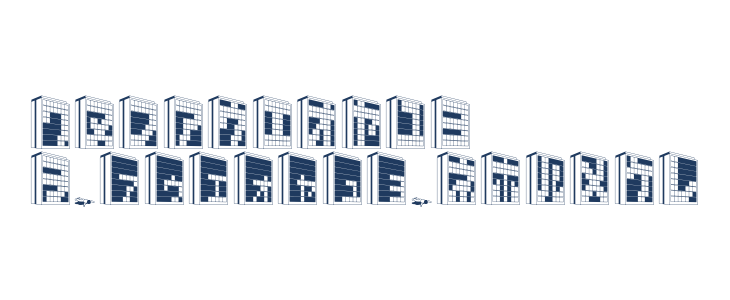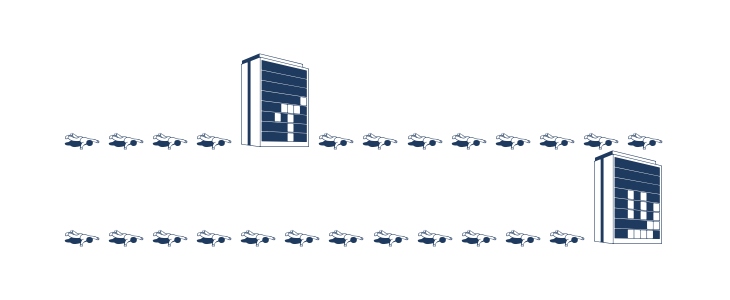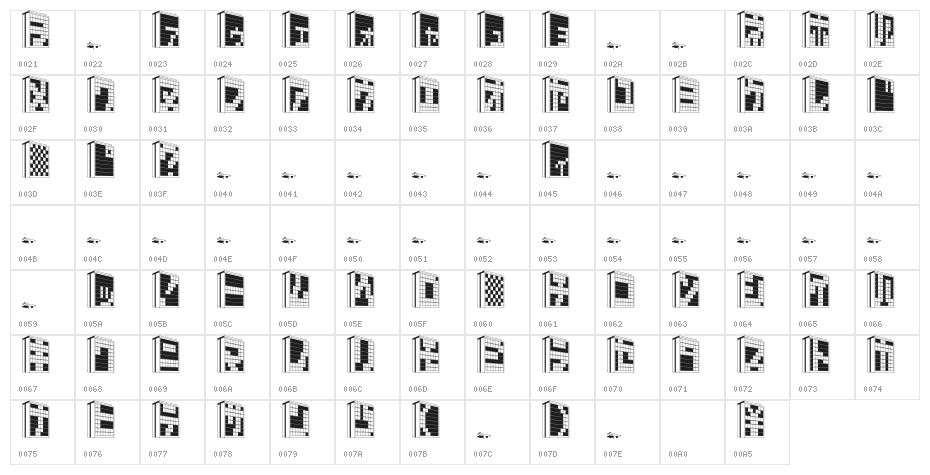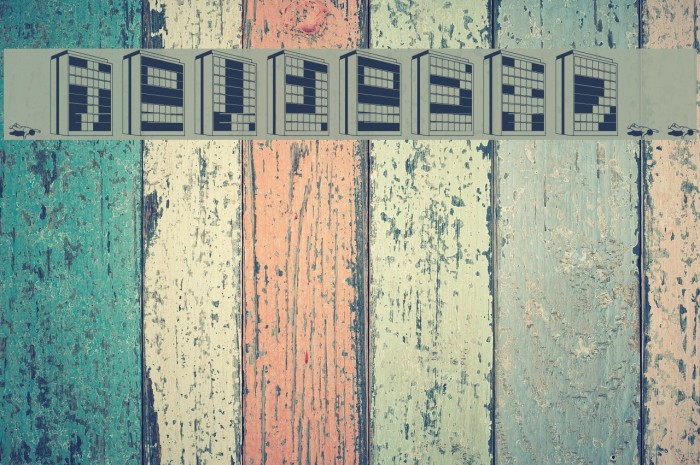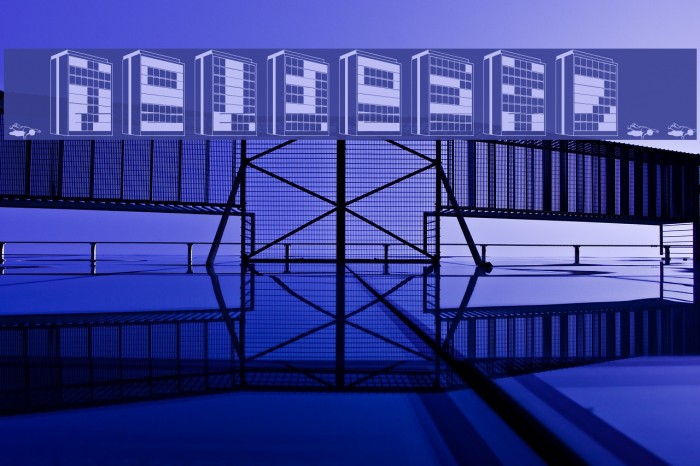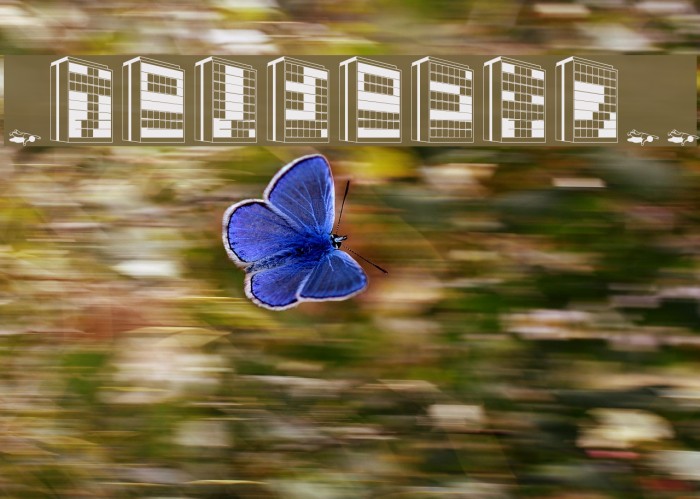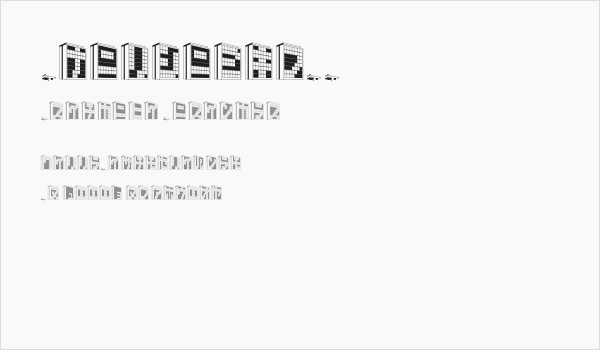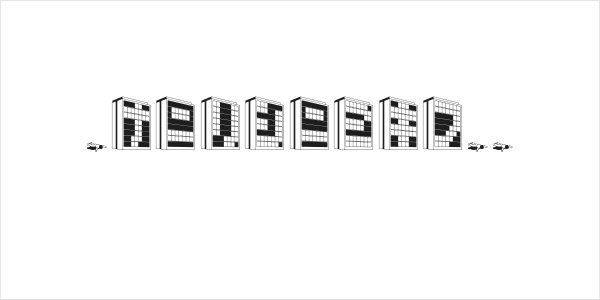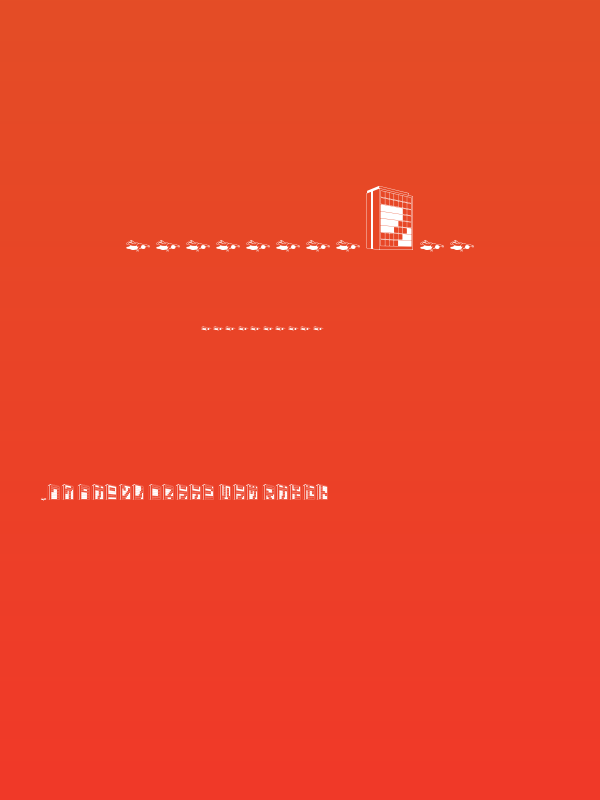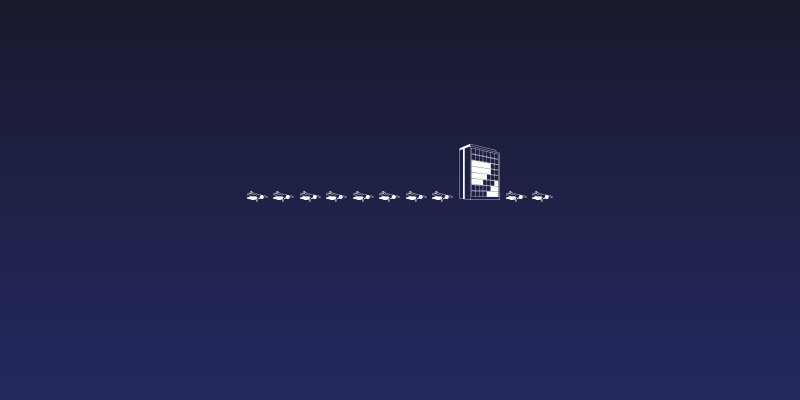
Building2KT Font
Building2KT Description
This font is a creative and unique representation of letters and numbers as architectural structures. Each character is designed to resemble a building, with windows and structural elements forming the shapes of letters and numbers. The design is highly detailed, with a focus on geometric forms and a monochromatic color scheme that emphasizes the architectural theme. The characters are bold and distinctive, making them stand out in any design project. This font is ideal for projects that require a modern and urban aesthetic, capturing the essence of cityscapes and architectural design.
| Proposed Projects | Ideal for architectural magazines, urban-themed posters, city event branding, and creative design projects that require a modern and structural aesthetic. |